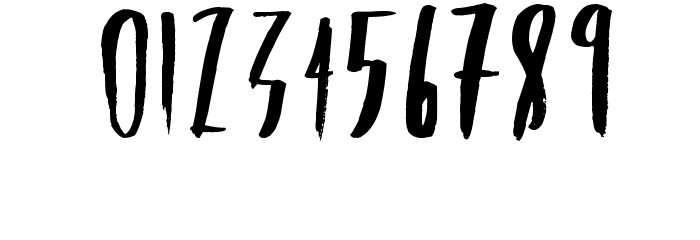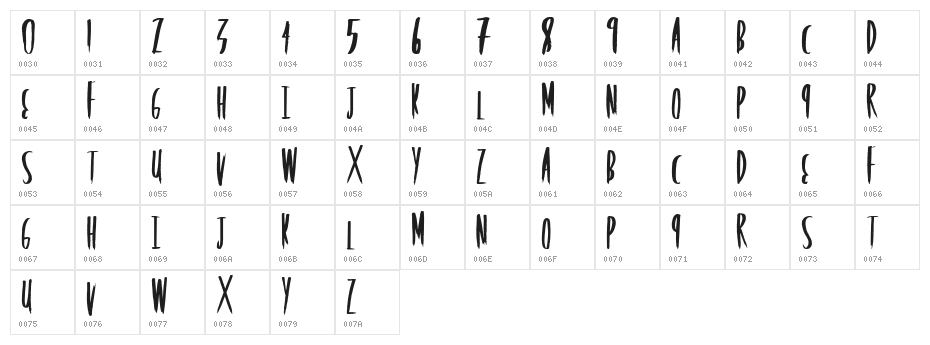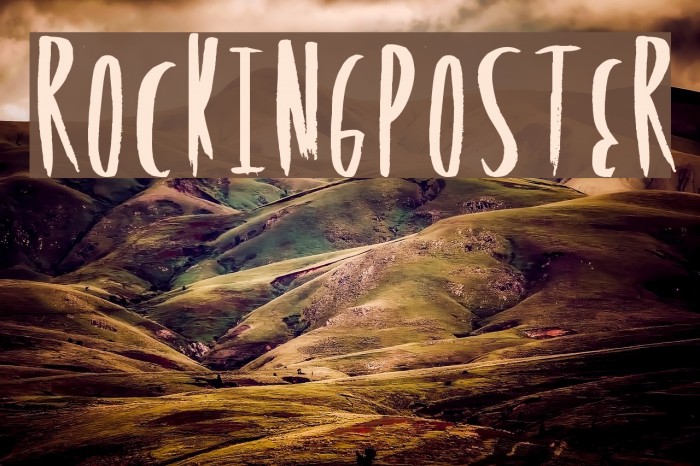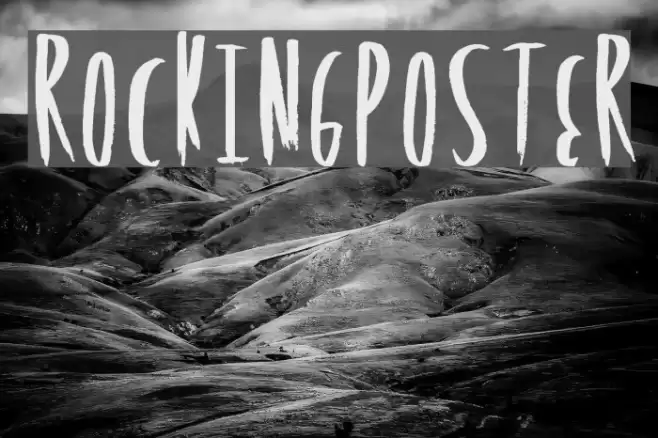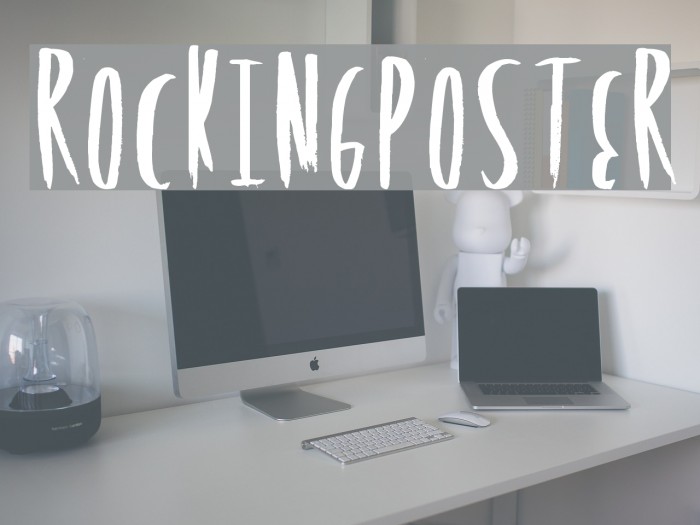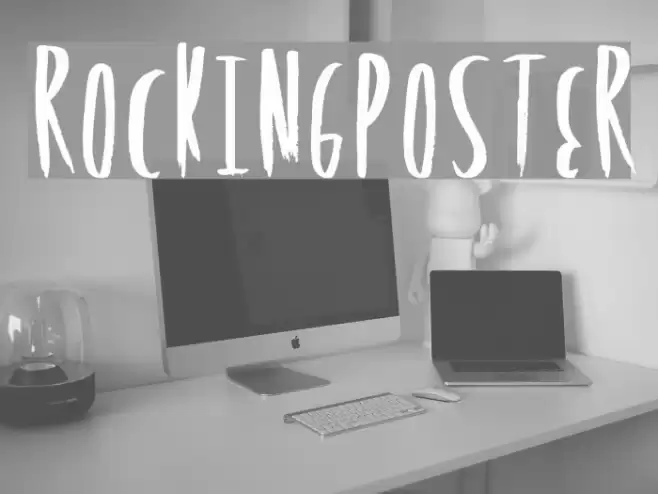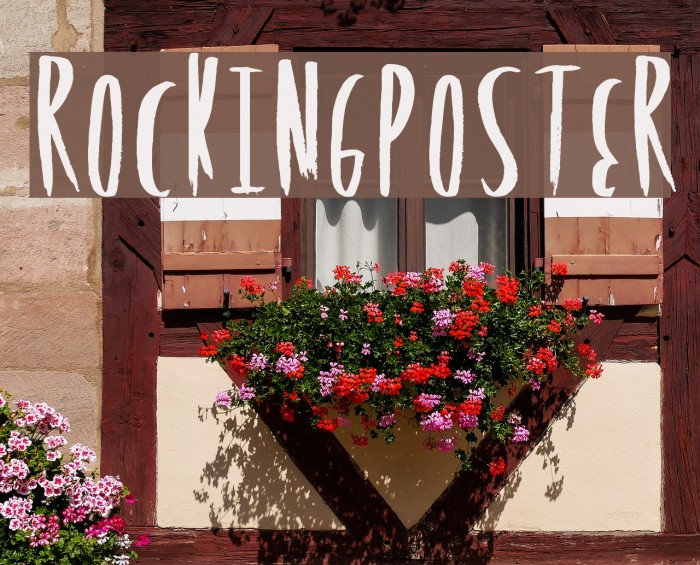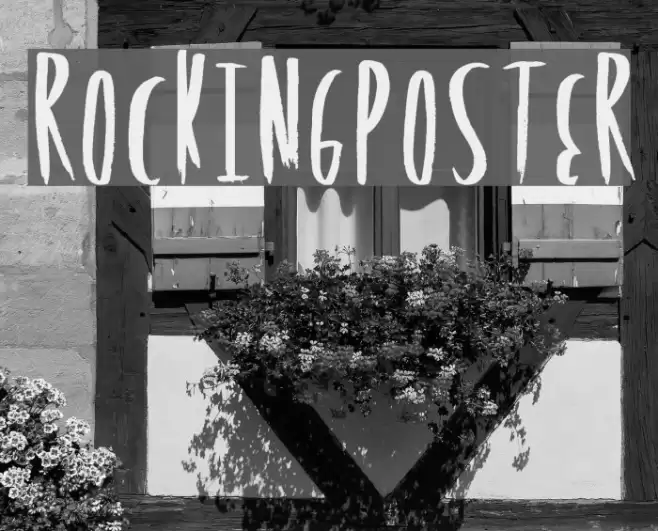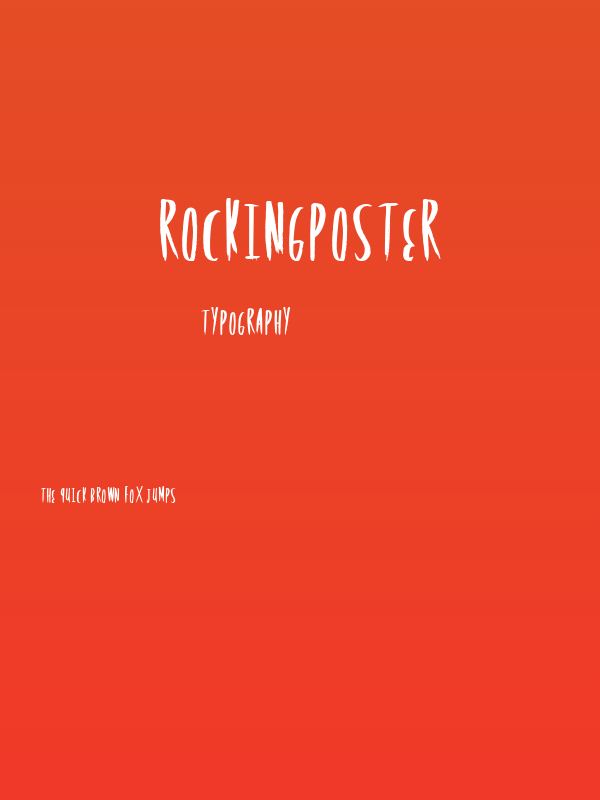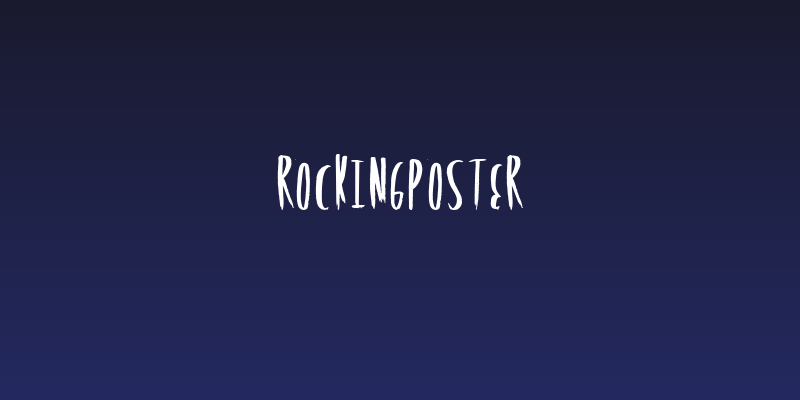
RockingPoster Font
RockingPoster Description
This font features a bold and expressive style with a hand-painted appearance. The characters are tall and narrow, with uneven edges that give a dynamic and energetic feel. The strokes are thick and vary in width, creating a sense of movement and spontaneity. The uppercase letters are particularly striking, with exaggerated verticality and a slightly rough texture that adds to the handmade aesthetic. The numbers and special characters maintain this lively style, making the font suitable for eye-catching designs.
Proposed ProjectsIdeal for posters, album covers, event flyers, and any project requiring a bold, artistic touch.